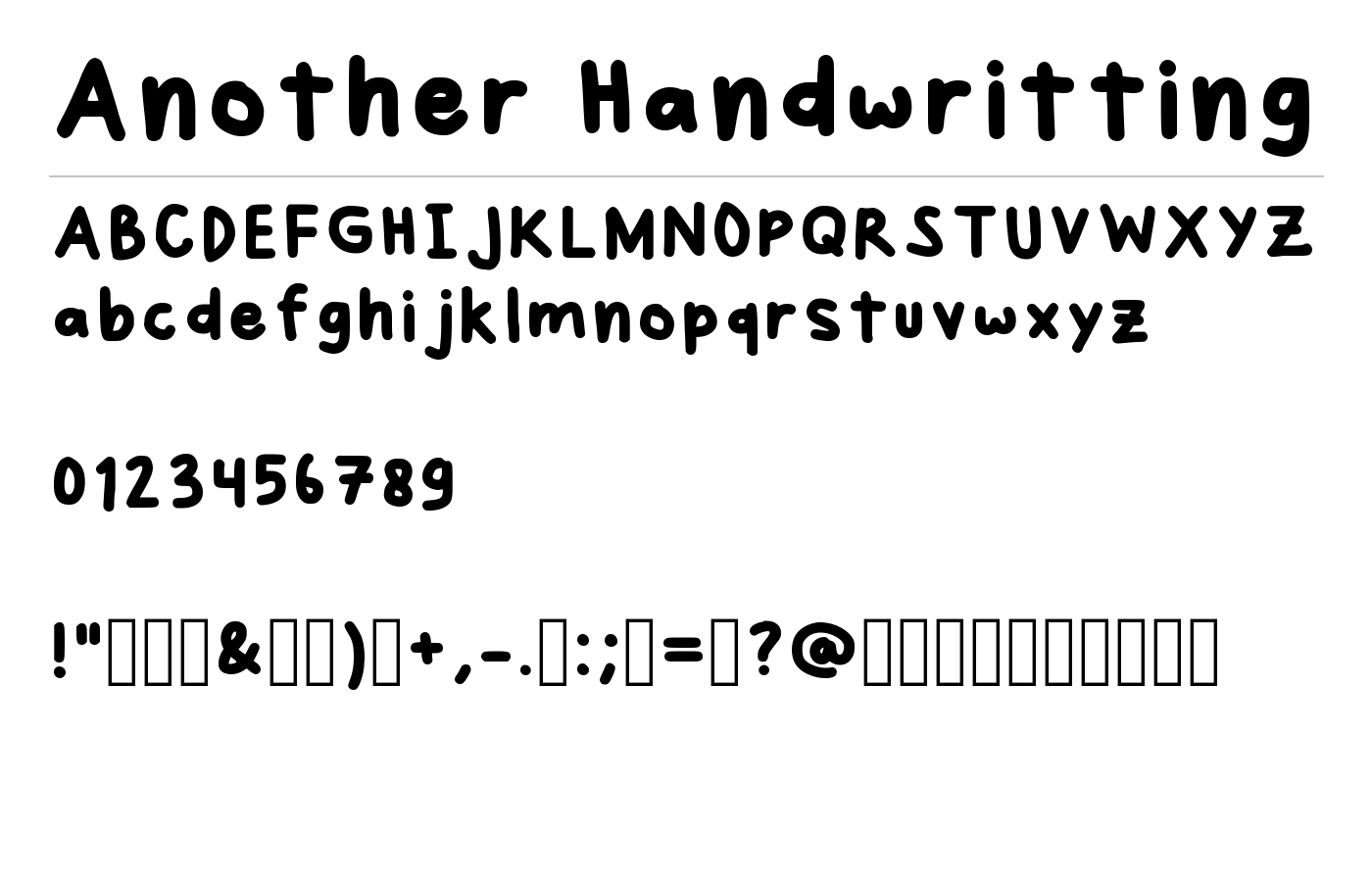
Another Handwriting Font is a playful and casual sans serif typeface with a warm, friendly personality. Its rounded, slightly irregular letterforms and medium weight give it an approachable, hand-drawn look that works well for informal designs, children’s content, and creative projects seeking a genuine, personal touch. This font’s clear readability and whimsical style make it ideal for headlines, packaging, and any context where an inviting and relaxed tone is desired.
Another Handwritting Font
About Another Handwritting Font